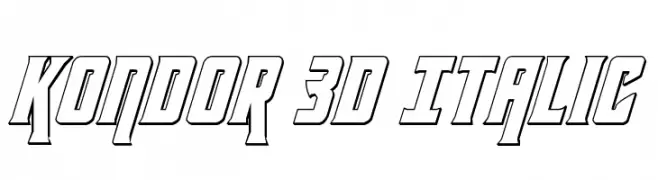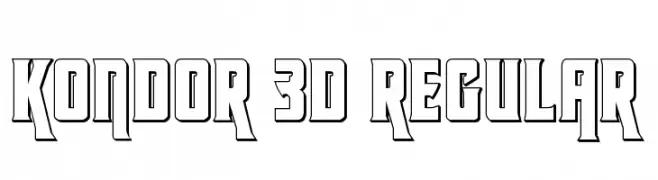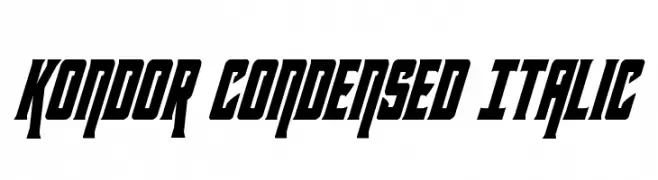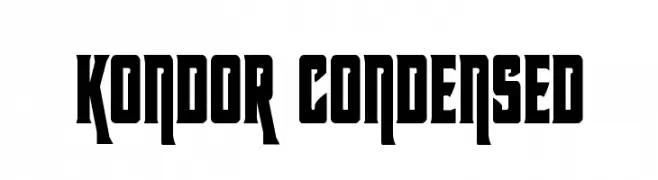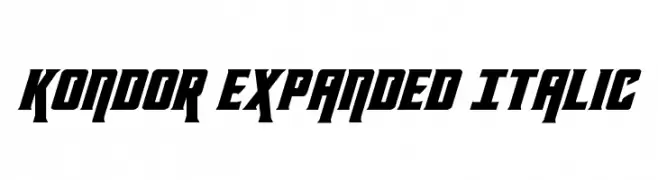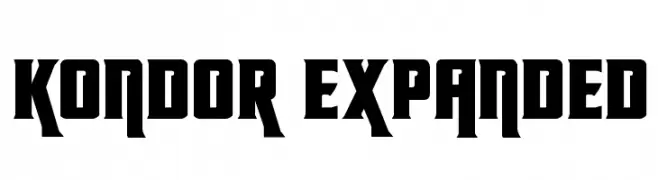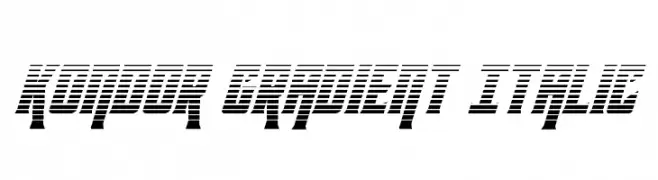
A bold, geometric font with a futuristic and powerful design.
A bold, 3D italic font with a modern, dynamic style.
A bold, angular 3D font with a futuristic and striking appearance.
A bold, condensed font with a modern and geometric style.
A bold, condensed italic font with high contrast and dynamic style.
A bold, angular font with an expanded width and vintage appeal.
A bold, expanded, and italicized font with a modern, edgy style.
A modern, italicized font with a gradient effect and striped pattern for a dynamic look.